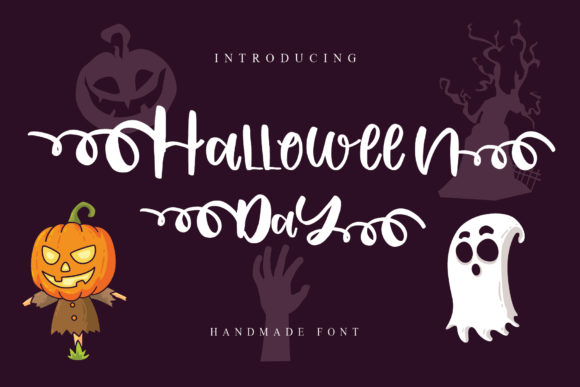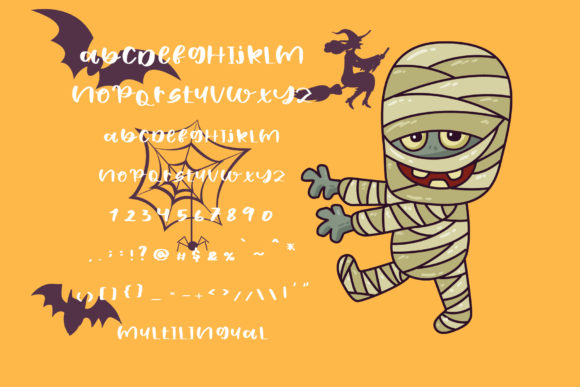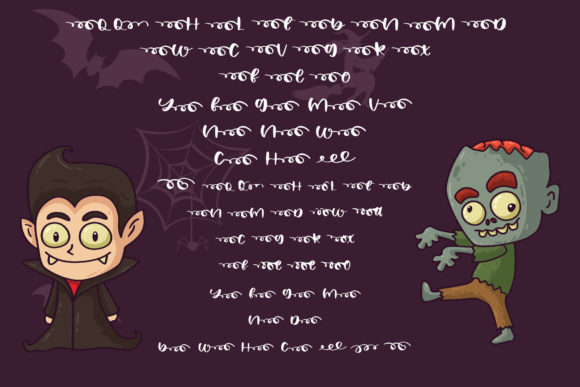
Halloween Day Font
About Halloween Day Font
Halloween Day is a flowing handwritten font, described by an elegant touch, perfect for your favorite projects. Fall in love with its incredibly distinct and timeless style and use it to create spectacular designs!